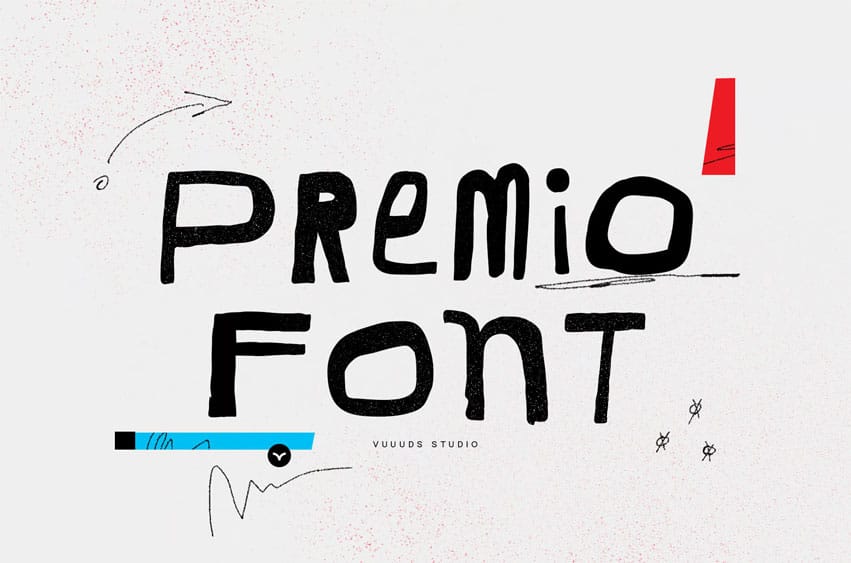
Premio Font is a modern experimental display font, every single letter has been uniquely crafted. This font includes a beautiful alternate glyph. You can access the alternate glyph via Font Book (Mac user) or Windows Character Map (Windows user).